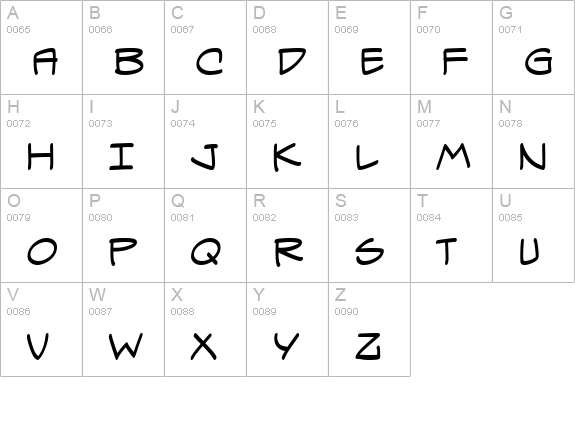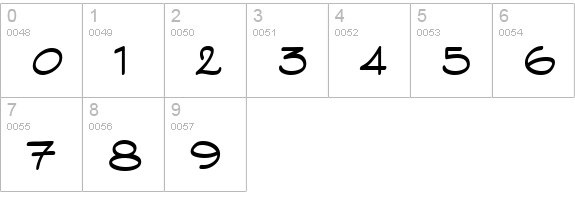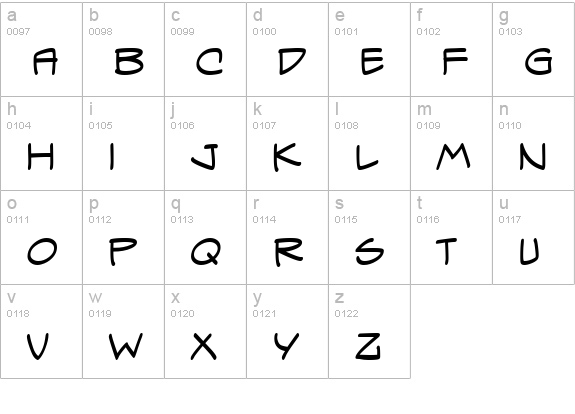
Spectre Verde BB Font Details
Spectre Verde BB is a stunning and versatile font that effortlessly captures attention with its unique and captivating design. With its bold and slightly slanted letterforms, this font exudes a sense of modernity and sophistication. The Spectre Verde BB font is perfect for a wide range of creative projects, from eye-catching logos to impactful headlines and everything in between. Its distinctive style adds a touch of excitement and personality to any design, making it an ideal choice for those who want their work to stand out from the crowd. But what sets Spectre Verde BB apart is not just its remarkable aesthetics, but also the fact that it is available for free. Yes, you read that right! This exceptional font can be freely downloaded at FontsMarket.com, allowing designers and creatives to access its beauty without any cost. Whether you are a professional designer looking to enhance your portfolio or a hobbyist exploring the world of typography, Spectre Verde BB is a must-have addition to your font collection. Its versatility, elegance, and affordability make it an absolute gem in the realm of typefaces. So why wait? Head over to FontsMarket.com and experience the magic of Spectre Verde BB. Download it for free and unleash your creativity with this extraordinary font that is sure to leave a lasting impression on all who lay eyes on it.